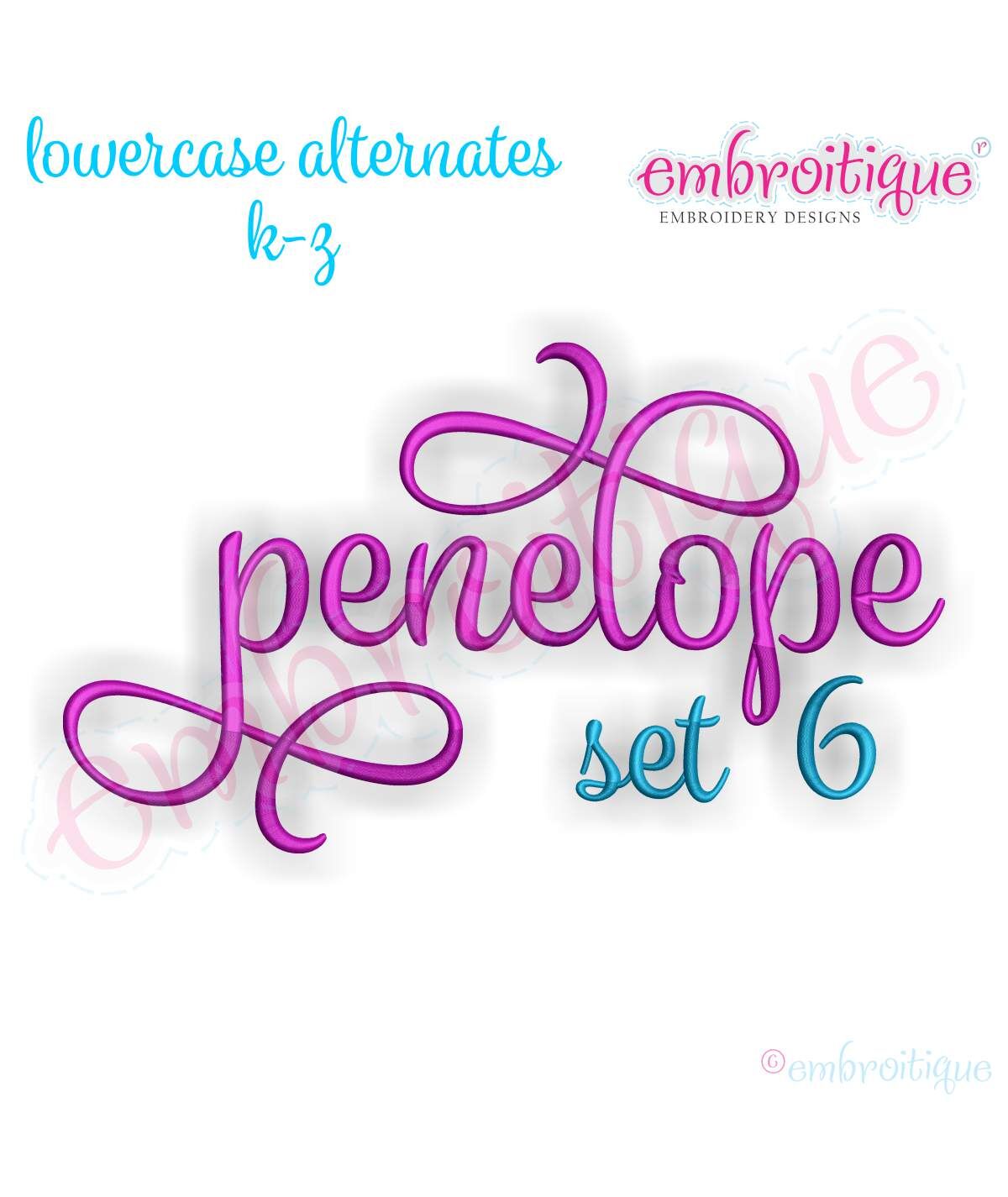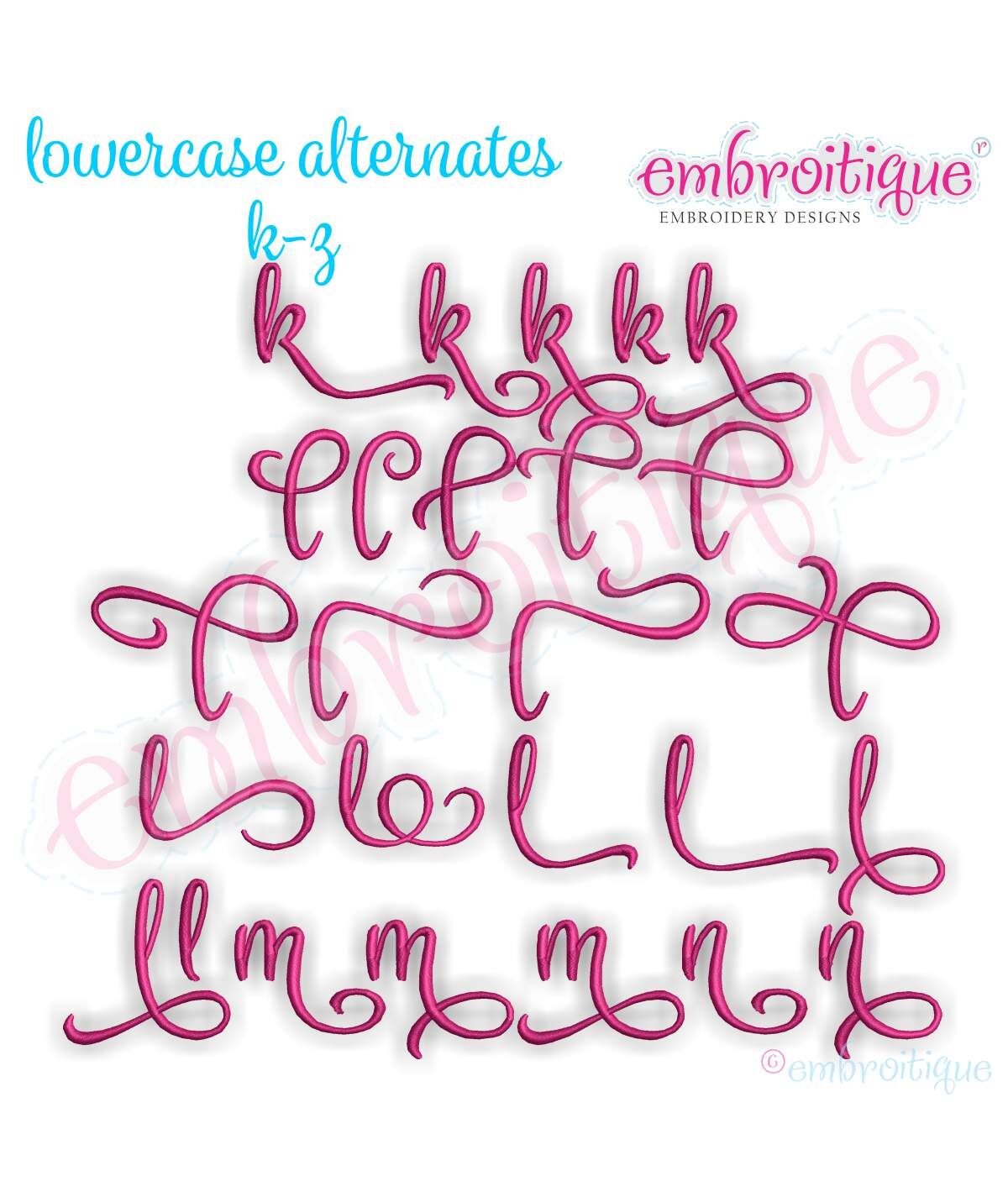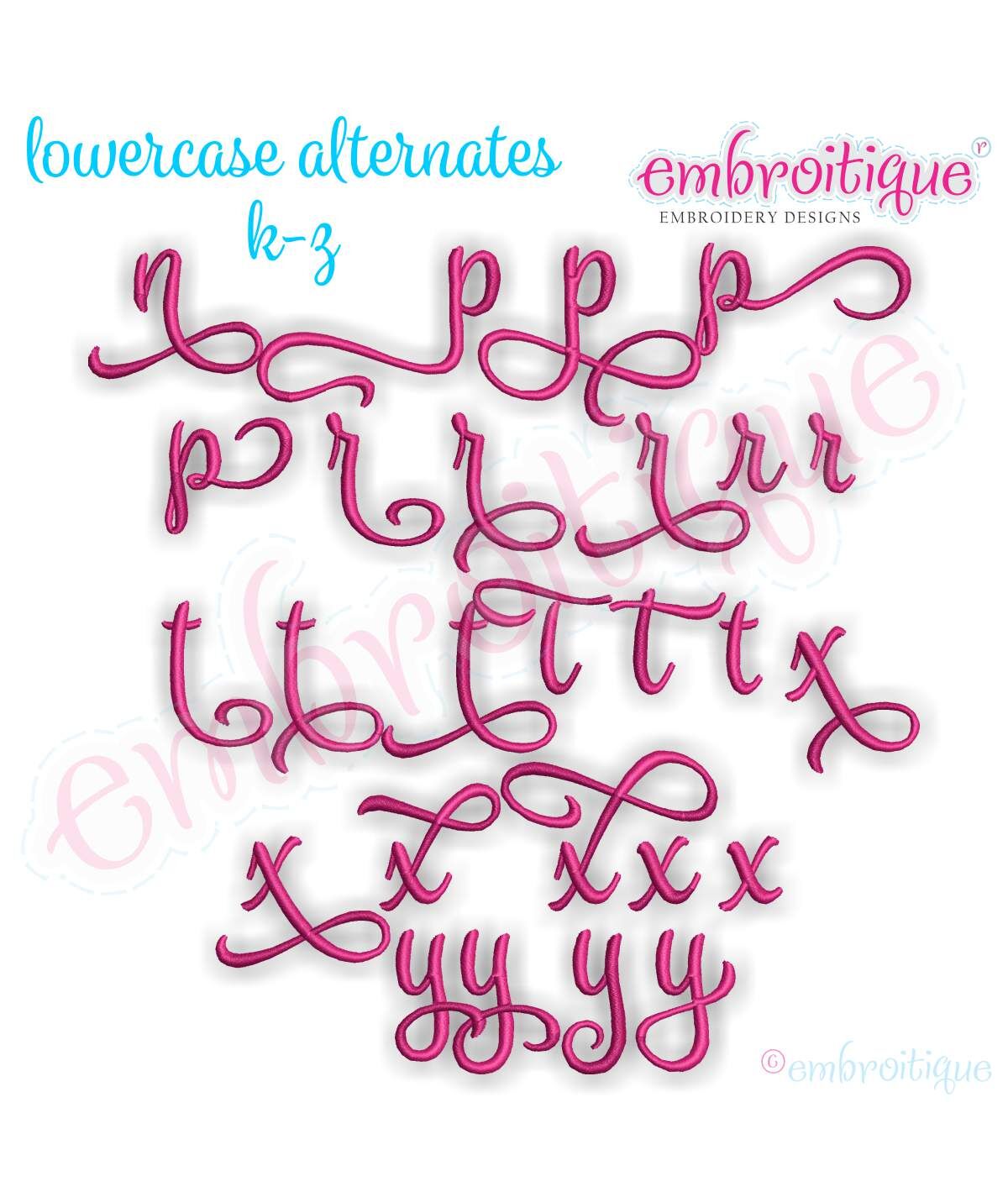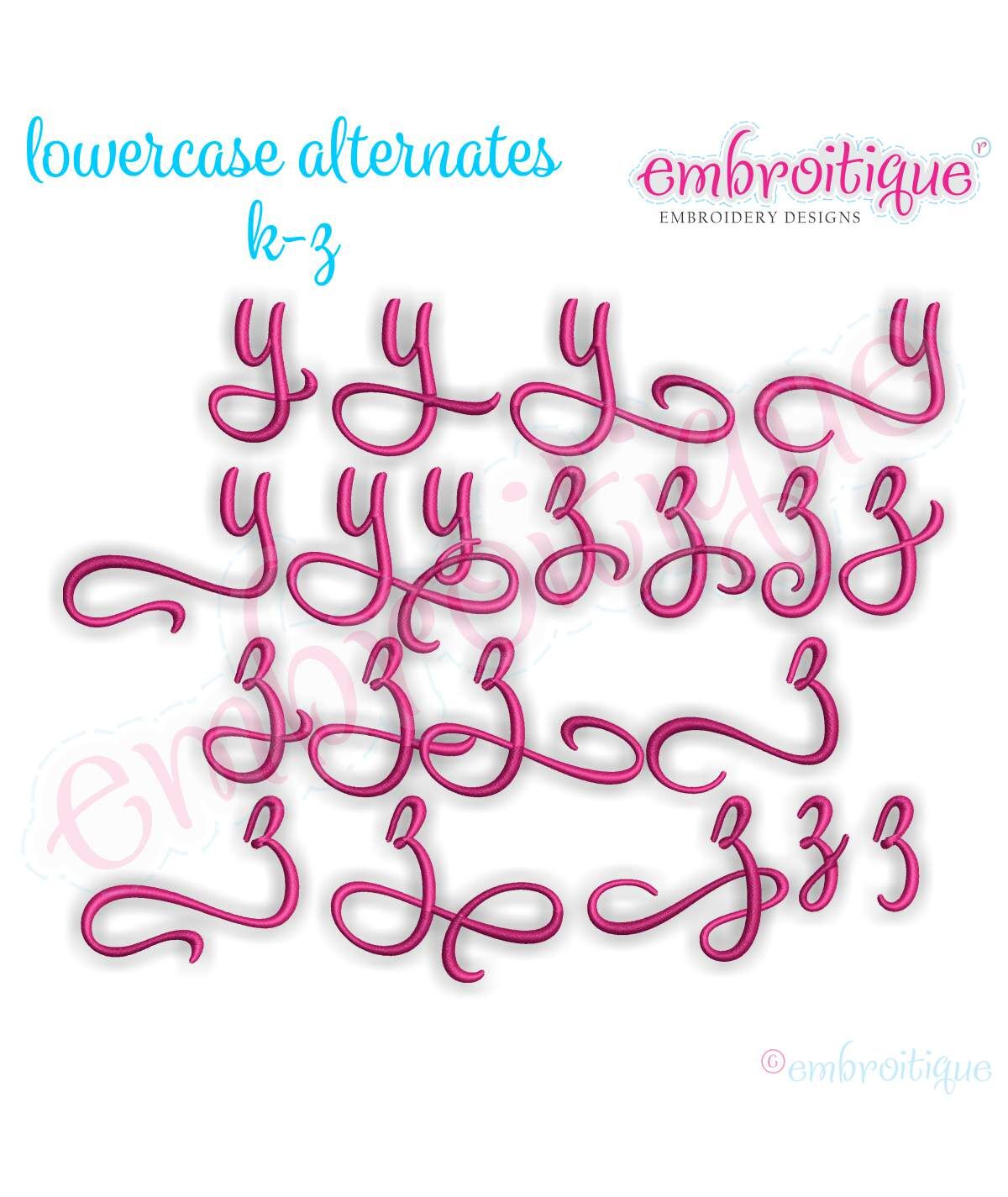
Penelope Set 6 - Calligraphy Script Monogram Alphabet Font for Machine Embroidery
lowercase alternates k-z to use with any of our Penelope Monogram sets